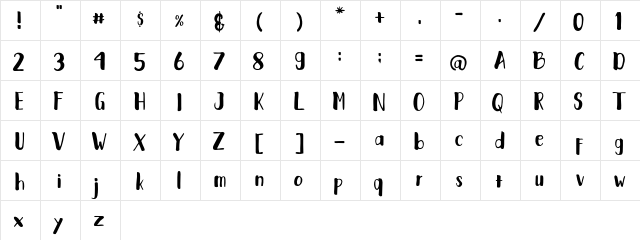
Fantai Regular
Design Context for Fantai Typeface
Fantai is a composed and adaptable typeface that performs quietly and consistently across a wide range of design contexts.